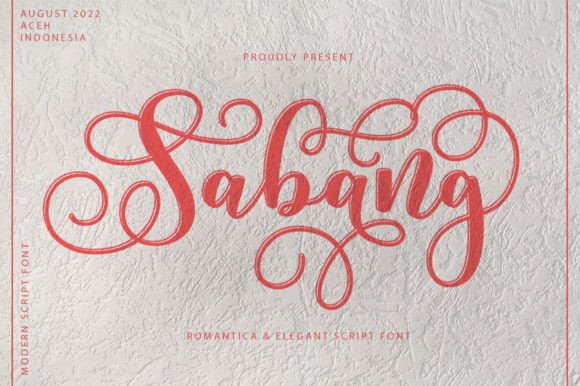
Introducing Sabang, the beautifully crafted script font that will ignite the flames of love in your design projects. With its captivating curves and elegant strokes, Sabang weaves a tale of romance and passion, leaving an indelible mark on the hearts of your audience.
Immerse yourself in the world of typography and let Sabang be your creative muse. This versatile font family, created by the talented designers at Typehill, offers a wide symphony of applications, from heartfelt greeting cards to bold and captivating headlines. Unleash the power of Sabang and watch your designs blossom into enchanting expressions of love.
Explore the boundless possibilities of Sabang. Whether you're crafting a wedding invitation that whispers sweet nothings, designing a logo that radiates romance, or creating social media posts that flutter with affection, Sabang will be your faithful companion. Its timeless beauty and innate charm will add a touch of magic to every project, leaving your audience spellbound.
With Sabang by your side, you'll discover a new realm of creativity. Its graceful lines and delicate flourishes will elevate your designs to new heights, capturing the essence of love and transforming your projects into masterpieces of heartfelt expression. Experience the transformative power of Sabang and witness the magic unfold before your eyes.